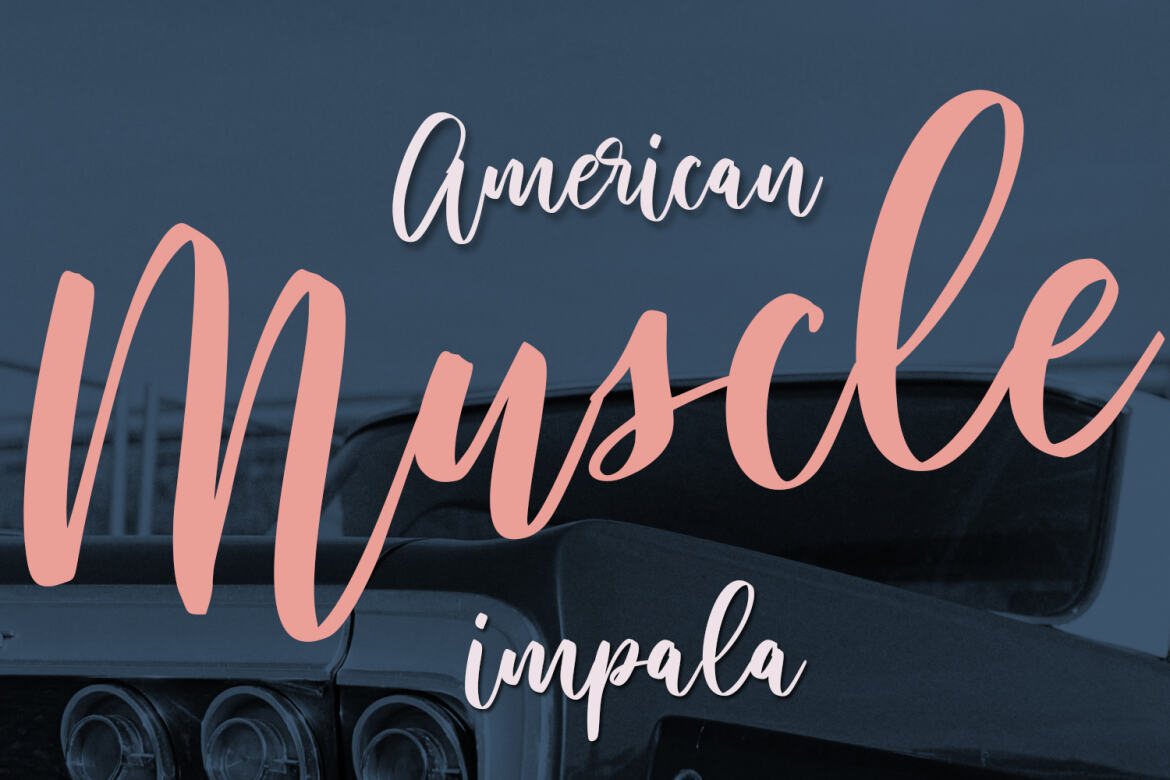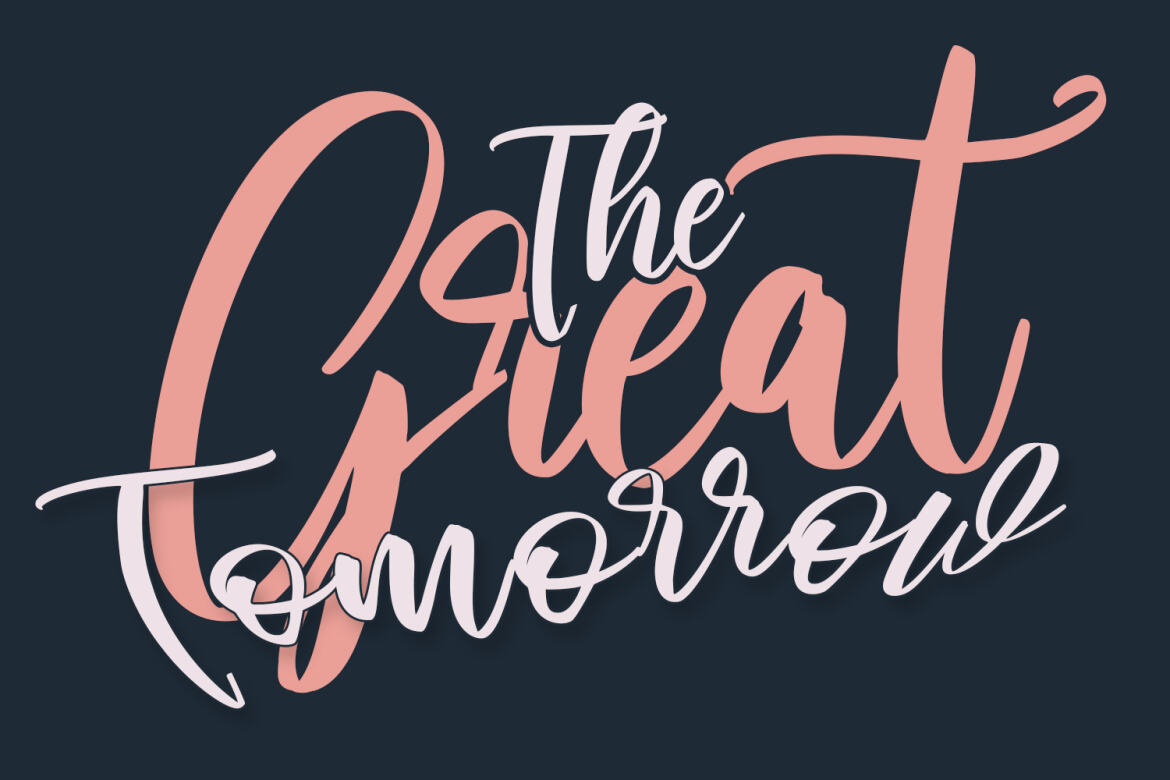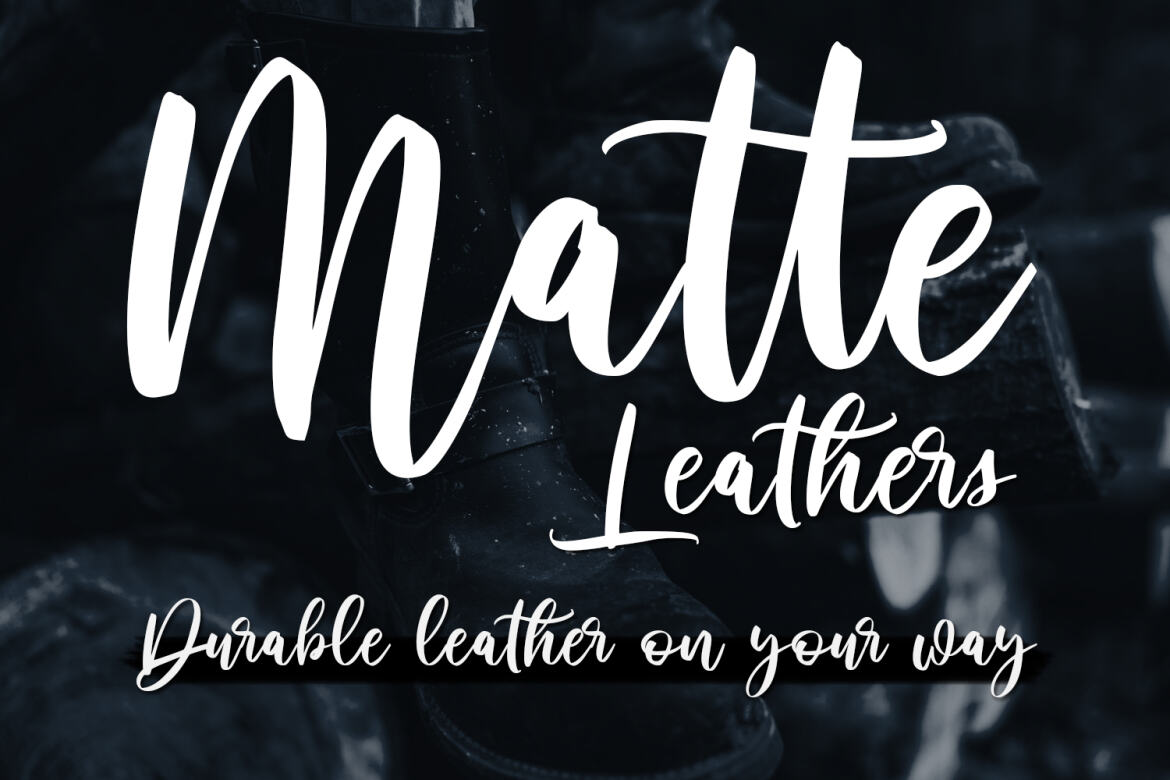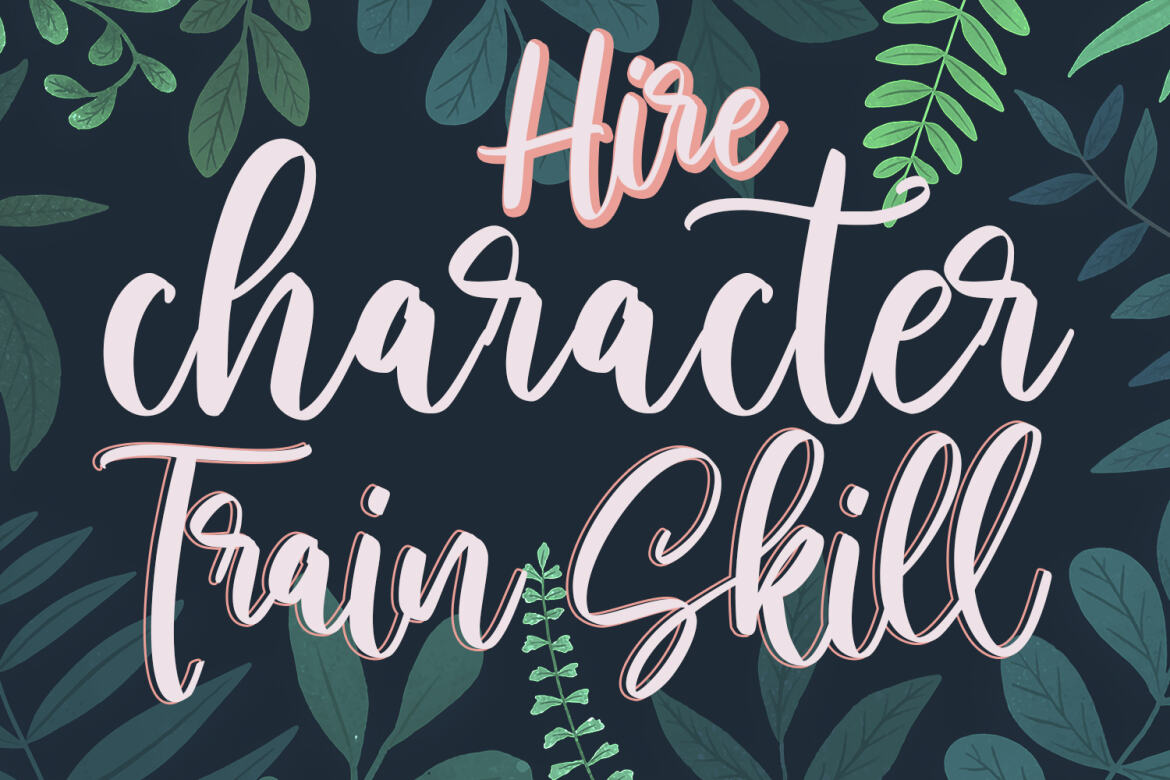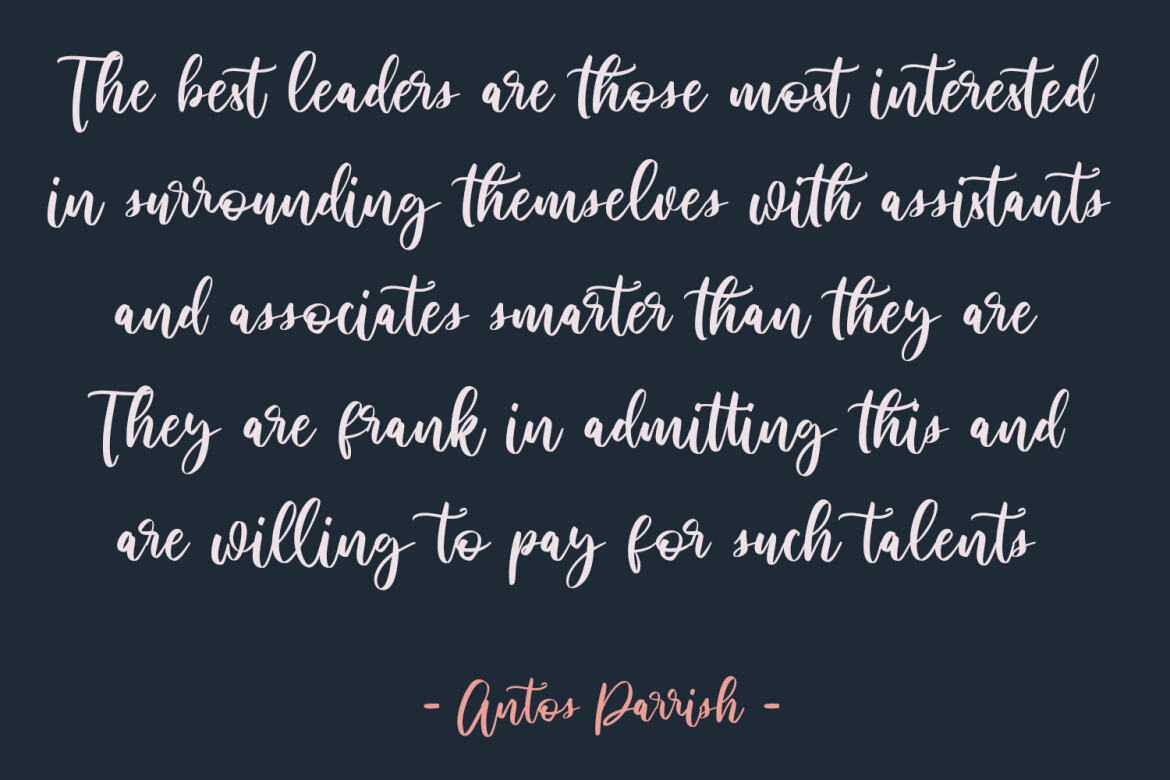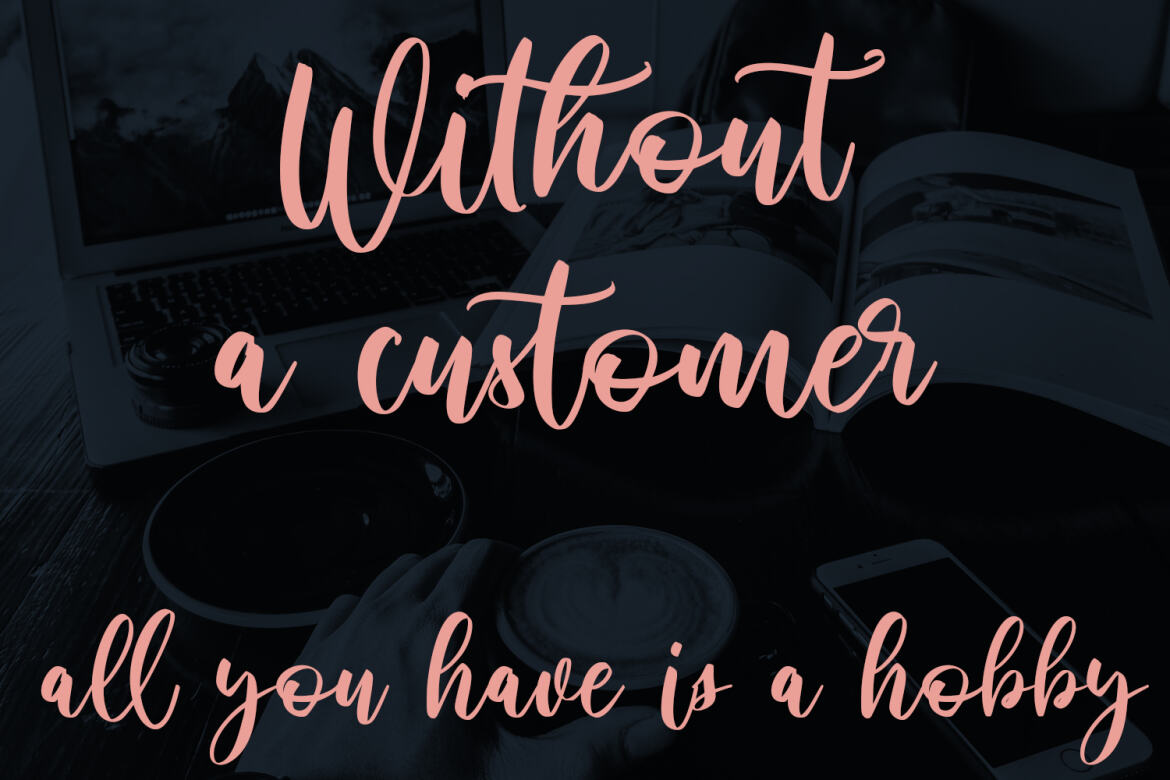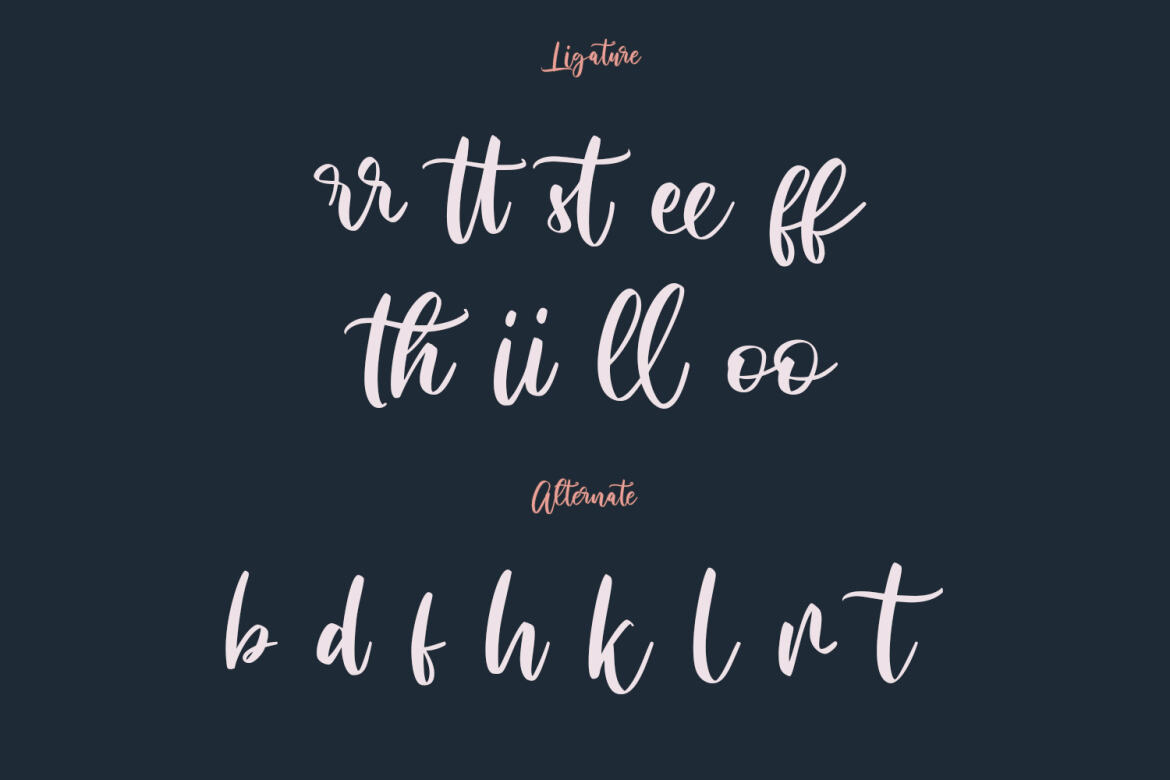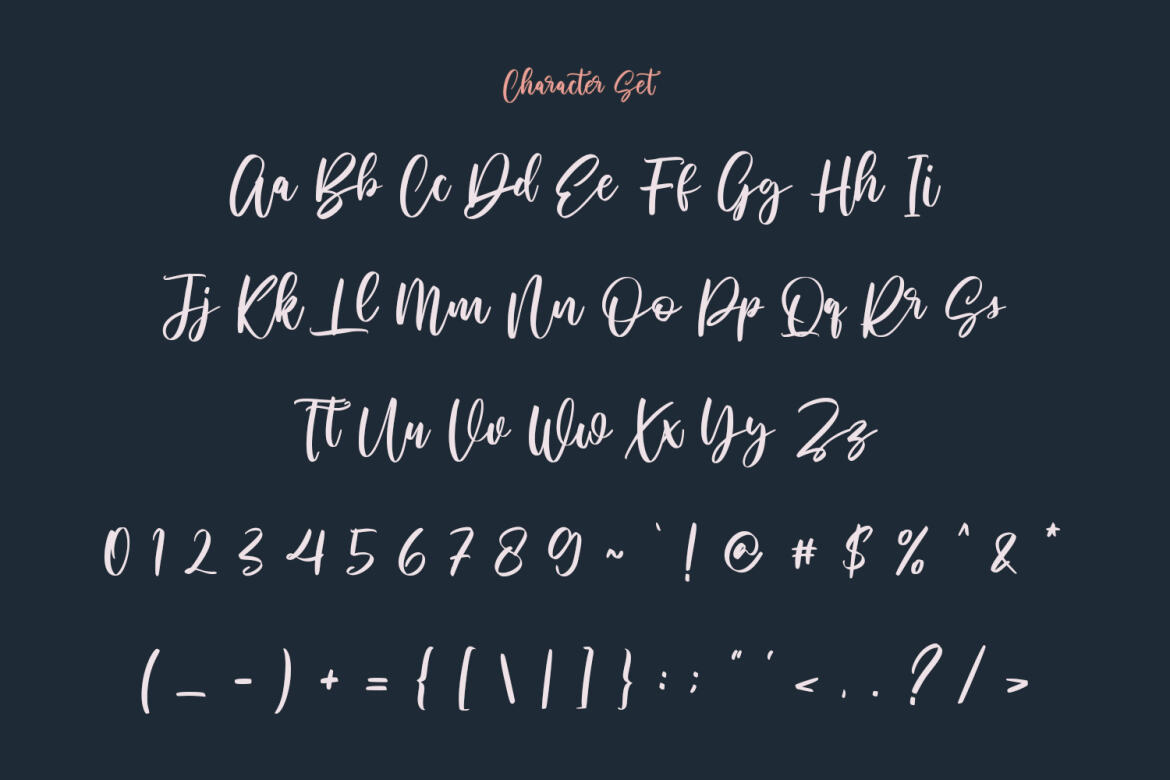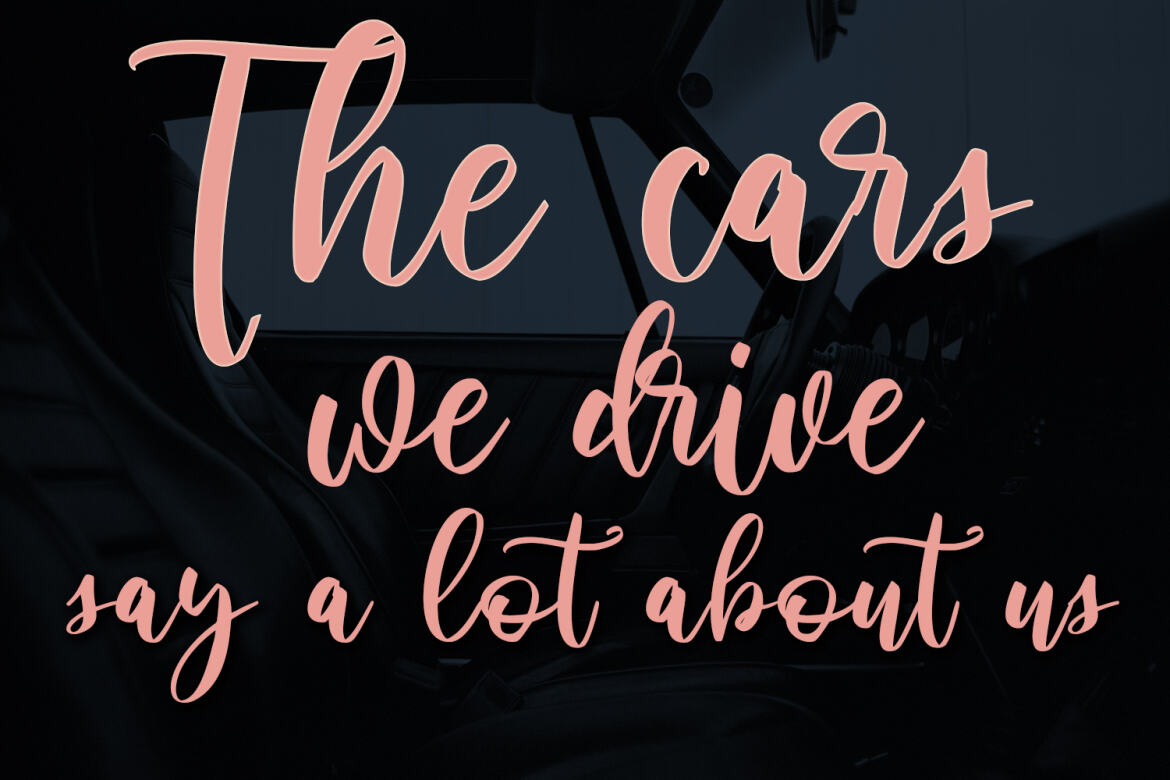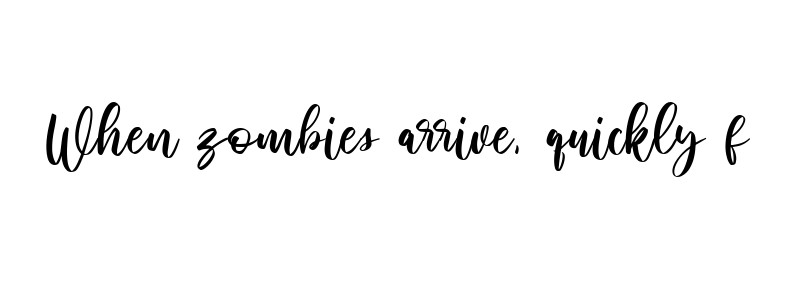
Cathelyne FREE Script Font
Cathelyne
Cathelyne is a Casual handwritten script font. With slant high contrast stroke, fun character with a bit of ligatures and alternates. To give you an extra creative work. Cathelyne font support multilingual more than 100+ language. This font is good for logo design, Social media, Movie Titles, Books Titles, a short text even a long text letter and good for your secondary text font with sans or serif. Make a stunning work with Cathelyne font.